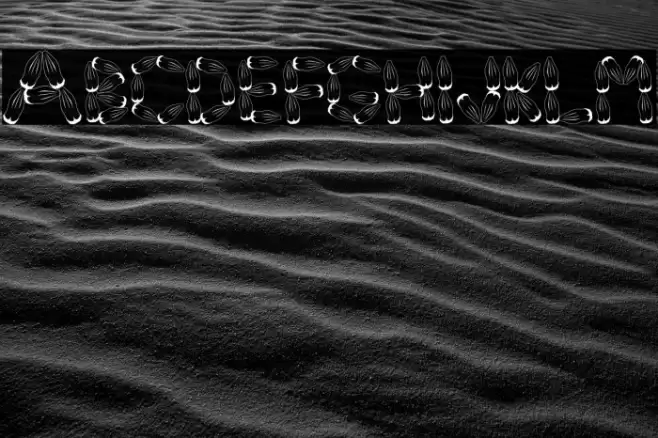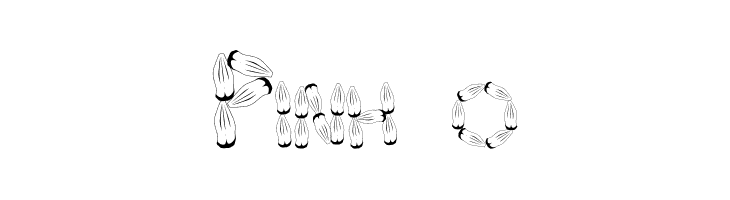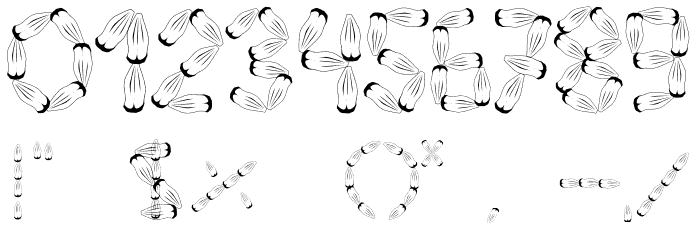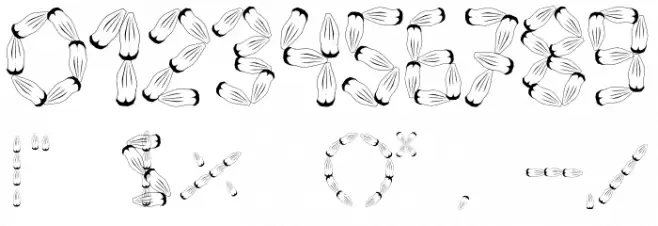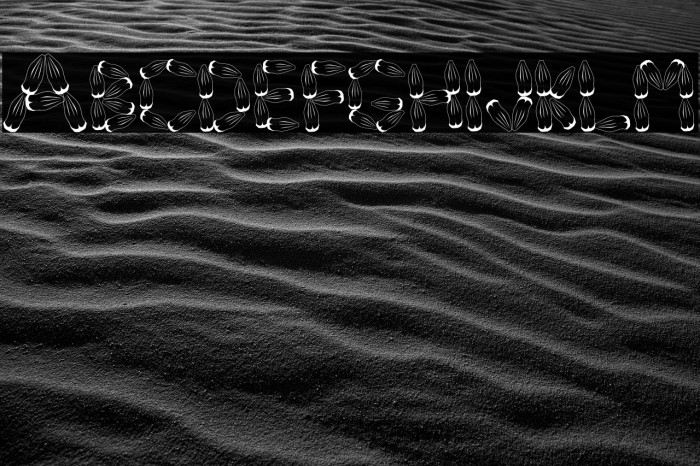
Pinh‹o Font
Pinh‹o Description
This font features a unique and playful design, with each character composed of petal-like shapes that create a whimsical and organic appearance. The strokes are consistent in width, giving the font a uniform look, while the intricate detailing within each petal adds a touch of elegance. The overall effect is both decorative and artistic, making it stand out in any design project. The characters are well-formed and easily recognizable, despite their unconventional construction, ensuring readability while maintaining a creative flair.
A whimsical, petal-inspired decorative font with consistent stroke width from Decorative fonts.